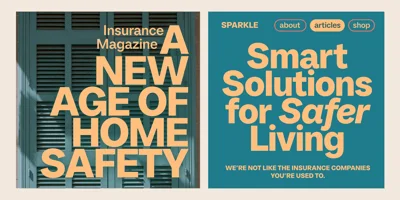
SFT Ritam Sans Font
SFT Ritam Sans Font is perfect for music studio branding, rhythmic dance academy signage, audio production company logos, percussion instrument packaging, metronome app interfaces, sound engineering materials, beat-making software designs, and harmonious musical marketing campaigns. This rhythmic typeface excels in applications where musical timing and rhythmic precision are essential.
What makes SFT Ritam Sans Font so exciting is its rhythmic ability to capture the precise timing and musical flow of rhythm through balanced, beat-inspired letterforms that embody the mathematical precision of musical timing and the dynamic energy of rhythmic expression. The font features measured character shapes with musical influences and rhythmic styling that evoke images of metronomes keeping time, dancers moving to the beat, and the invisible pulse that drives all musical expression. Its rhythm-focused design philosophy combines musical authenticity with contemporary clarity, making it perfect for audio brands seeking to convey rhythmic precision, musical timing, and connection to music production communities and rhythmic culture.
SFT Ritam Sans Font belongs to the musical sans-serif font family, specifically designed for rhythm and audio production-themed branding applications. This typeface family emphasizes rhythmic visual flow through beat-inspired styling and musical character elements, ensuring authentic musical presentation across various audio production and rhythm-focused design projects.
Synchronize with musical precision using SFT Ritam Sans Font, a typeface that embodies the exact timing of musical rhythm and audio production excellence. This rhythmic font delivers exceptional flow for musical applications, featuring comprehensive character sets with musical symbols and rhythmic punctuation marks that capture the essence of beat precision and musical timing. Its precisely measured letterforms maintain excellent readability while preserving the authentic rhythmic aesthetic across various sizes, from small audio equipment labels to large recording studio entrance displays. The font's distinctive musical personality makes it invaluable for designers creating music brands, audio production materials, and rhythmic content where conveying timing, musical precision, and rhythmic flow is crucial for engaging music production communities and audio engineering audiences seeking authentic musical experiences and professional, precisely-timed rhythmic musical performance.